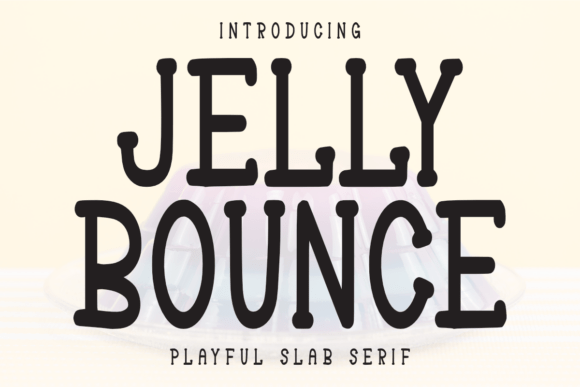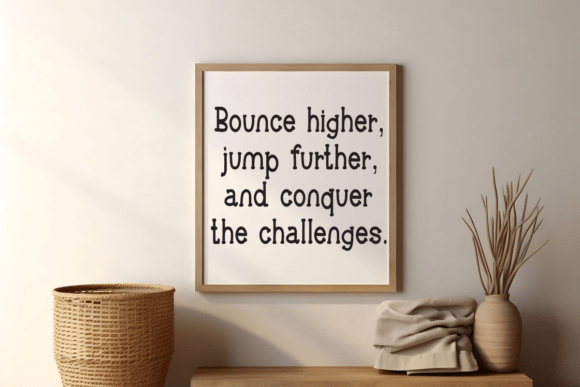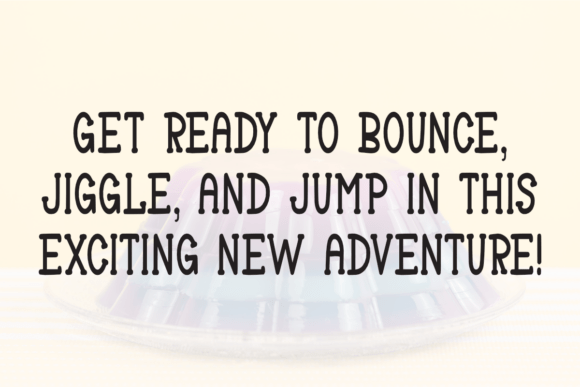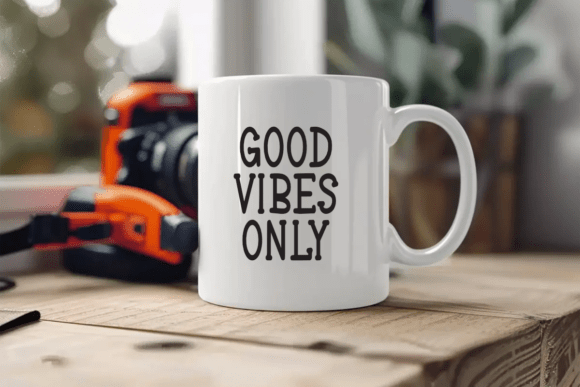
Jelly Bounce Font: A Cute Slab Serif for Playful Logo Design & Branding!
About the Jelly Bounce Font
Add a touch of class to your work with the Jelly Bounce Font, a truly exceptional typeface. Jelly Bounce is a playful slab serif font that brings a burst of charm and sweetness to your designs. With its rounded terminals and candy-inspired character, it’s perfect for children’s projects, snack packaging, logos, and any layout that craves a fun, bouncy look.
Jelly Bounce excels in headlines, short slogans, and playful branding applications where its bouncy personality shines. It’s ideal for children’s products, confectionery packaging, and logos requiring a friendly, approachable feel. However, its unique character set makes it less suitable for lengthy body text or UI elements where readability is paramount.
Pair Jelly Bounce with a clean sans-serif like Open Sans for a balanced contrast, or a more geometric sans-serif such as Futura for a modern feel. A delicate script font could add a touch of elegance, depending on the desired effect. Avoid pairing it with other highly decorative or overly ornate fonts to prevent visual clutter.
Its core personality is undeniably playful and friendly, making it a great choice for brands targeting a young or family-oriented audience. The rounded forms communicate a sense of softness and approachability, while the slab serif structure retains a degree of boldness.
Jelly Bounce Font Usage Examples
Jelly Bounce Font Example